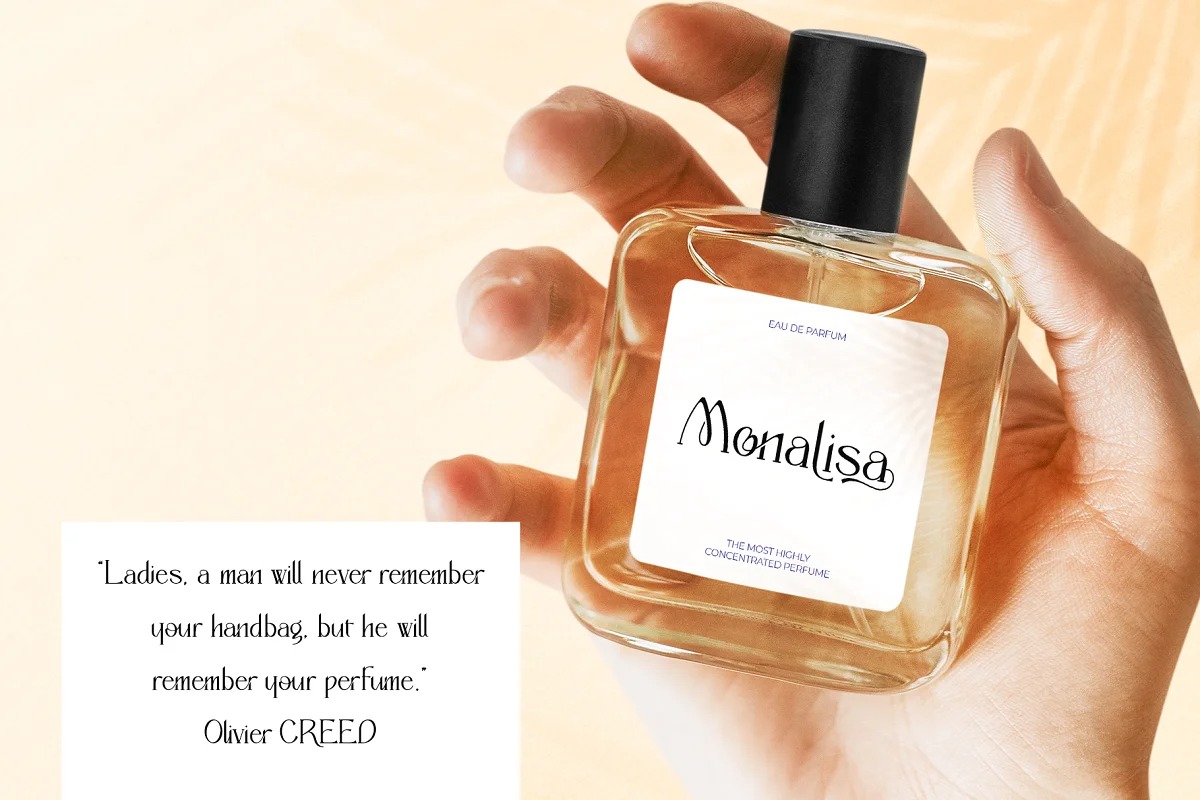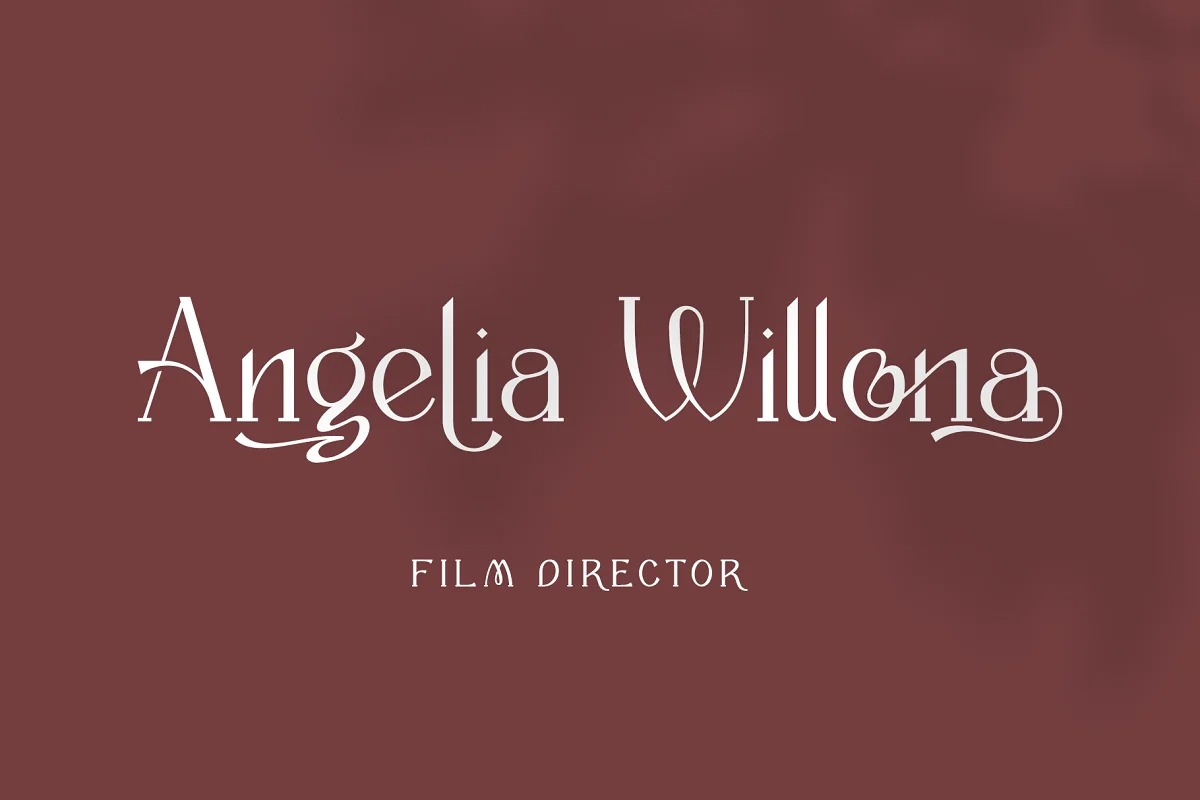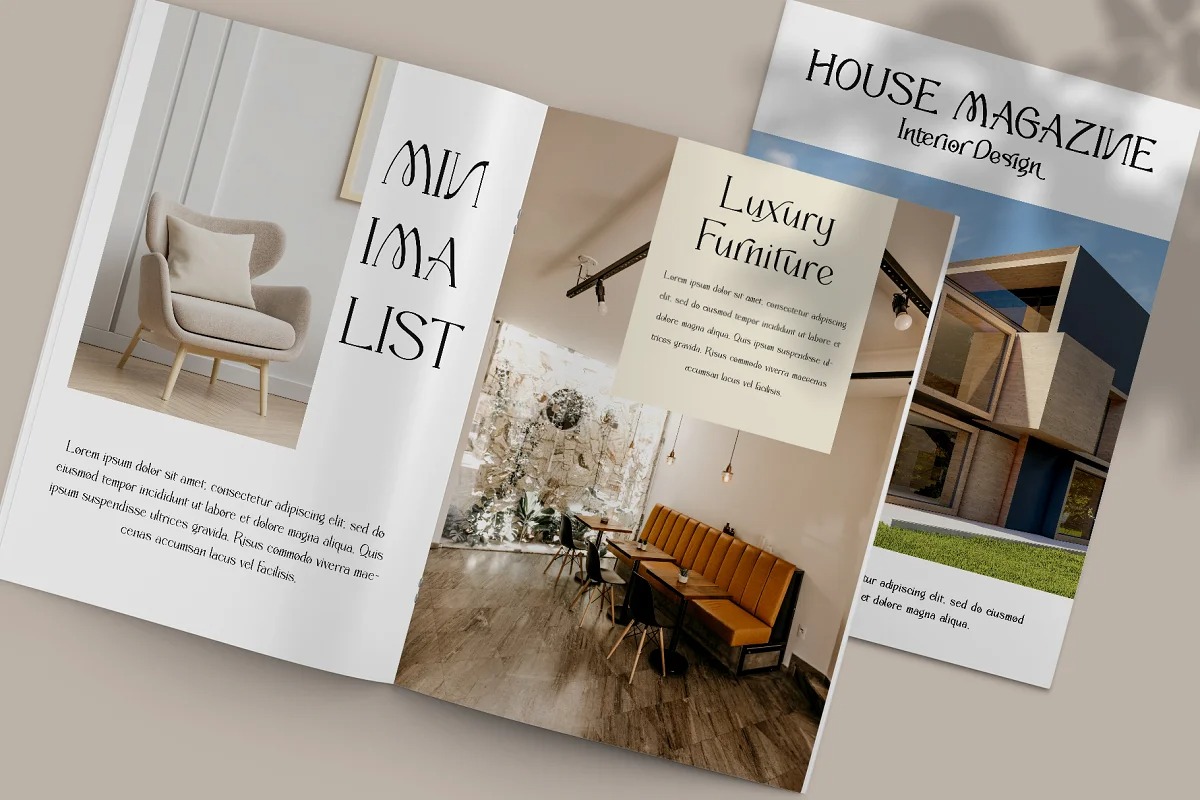
Bigrock Serif Font is an unique serif font with luxury, elegant, modern and classy-look. This font is suitable for many projects, for modern or even retro vintage design, branding, crafting, sticker, sublimation, wedding invitation, advertising, vintage mood boards, logotype, packaging, titles, editorial design, and many more. This font is PUA encoded, which means you can easily access all glyphs and washes!